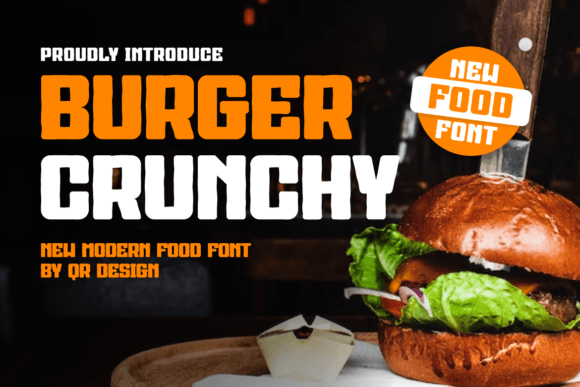
Adding a Crunch to Your Creations: Burger Crunchy Font
Have you ever stared at a blank canvas, wondering how to bring your idea to life? Maybe you’re brainstorming a new project, and the perfect font is the missing piece that will make it shine. That’s where Burger Crunchy Font comes in – a fun and playful sans serif font designed to add a burst of energy to your creative endeavors.
This versatile font is more than just a pretty face; it’s a powerful tool that can elevate your designs and make them stand out in a crowded space. Whether you’re a graphic designer, a social media manager, or a DIY enthusiast, Burger Crunchy Font is a valuable addition to your toolkit. Its unique blend of modernity and whimsy makes it perfect for a wide range of applications, from branding and marketing materials to digital graphics and print projects.
Burger Crunchy Font Key Features
- Font Family: Burger Crunchy Font is a unique, bold font designed to resemble crunchy burger toppings. It is available in various font styles, including Regular, Italic, Bold, and Bold Italic.
- Unique Characteristics: The font’s bold, crunchy texture and unique letterforms make it stand out from other fonts, perfect for creating attention-grabbing designs and branding.
Burger Crunchy Font Review
First off, let’s talk about what works well with this font. ✨ The rounded edges and bold lines give it a fun, playful vibe that’s perfect for casual branding or social media graphics. It’s also surprisingly versatile and can work for a wide range of themes, from fast food to entertainment. The font is also well-suited for headlines and titles, where it can grab attention and add a touch of whimsy.
On the other hand, there are some limitations to consider. ⚠️ For one, the font can be a bit too loud and overpowering when used for large blocks of text. It’s also not ideal for body text or paragraphs, where it can become overwhelming and difficult to read. Additionally, the font’s uniqueness can be both a blessing and a curse – while it’s sure to stand out, it may not be the best choice for brands that want to convey a more serious or professional tone.
Overall, I’d say the Burger Crunchy Font is a solid choice for the right project. It’s perfect for adding a touch of fun and personality to your branding or design, but may not be the best fit for more formal or serious applications.
- Fun, playful vibe with rounded edges and bold lines
- Surprisingly versatile and can work for a wide range of themes
- Well-suited for headlines and titles
- Not ideal for large blocks of text or body text
- May be too loud and overpowering for serious applications
Burger Crunchy Font is ideal for use in food-related branding, advertising, and packaging design. It’s also great for adding a playful touch to social media graphics and blog posts. To get the most out of this font, use it in combination with bright colors and bold graphics to create a visually appealing design.